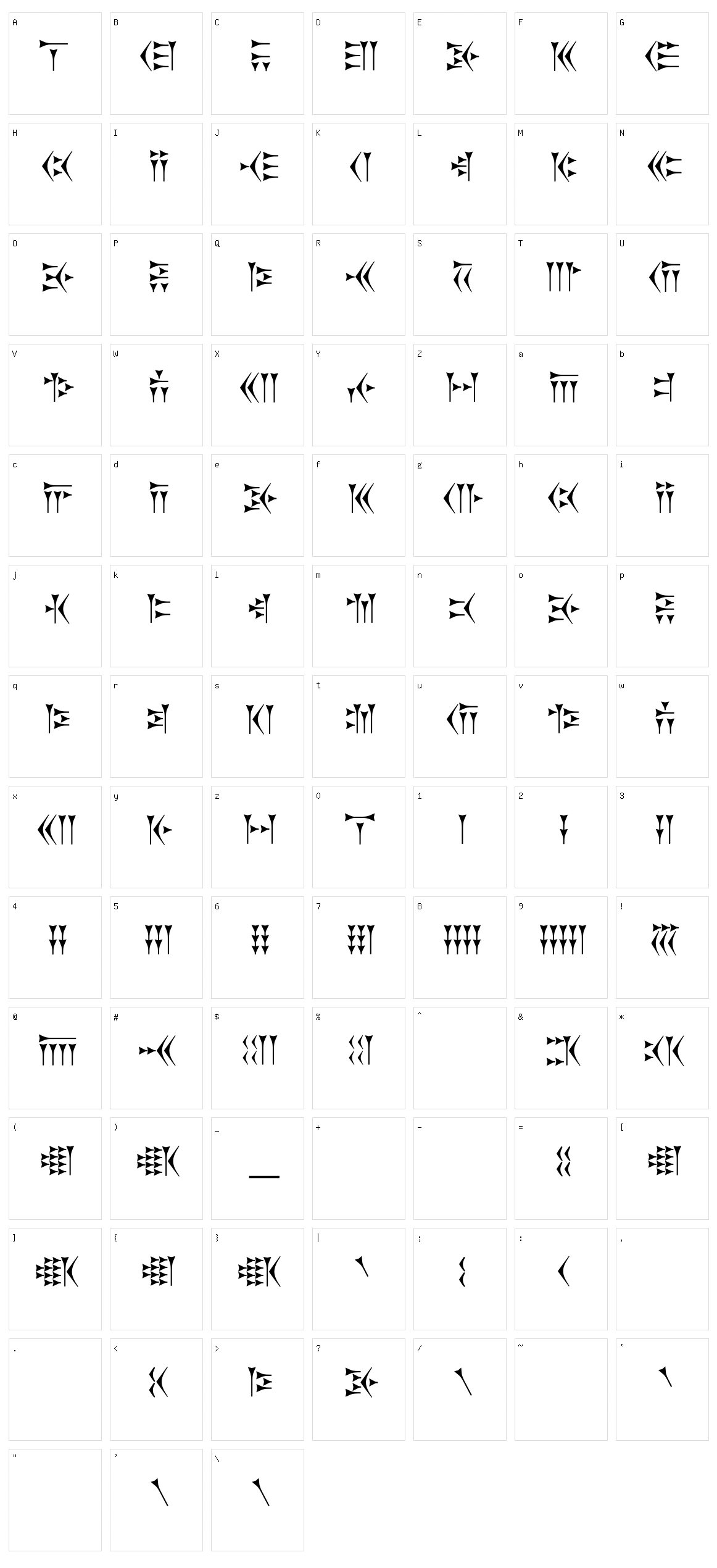
Developed with the help of Mr. Keyvan Mahmmoudi, from the University of Teheran, the glyphs are allocated over very convenient keys, but also works for Unicode. This font includes every known glyph for this ancient inscript. This is a free non-commercial font and should not be selled by any means. For more details on how to use the font, corrections, comissions, permissions or suggestions, contact me: fereydoun23@gmail.com